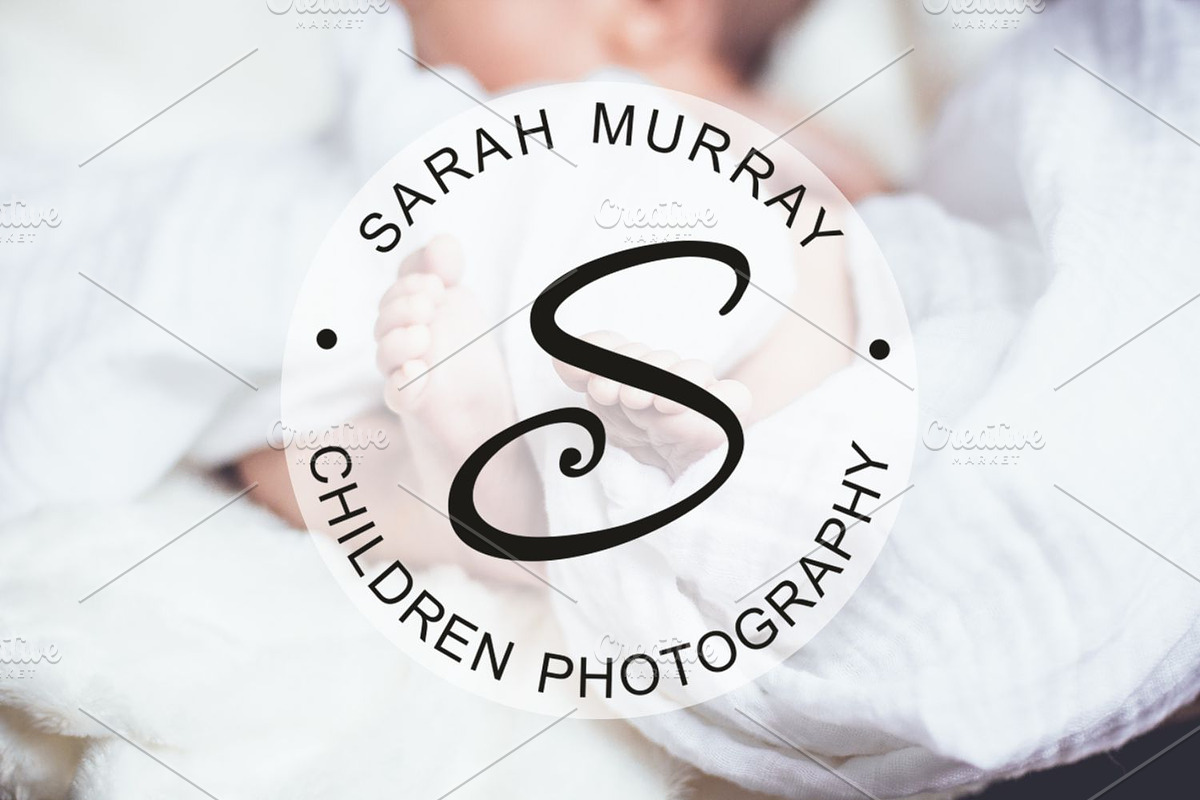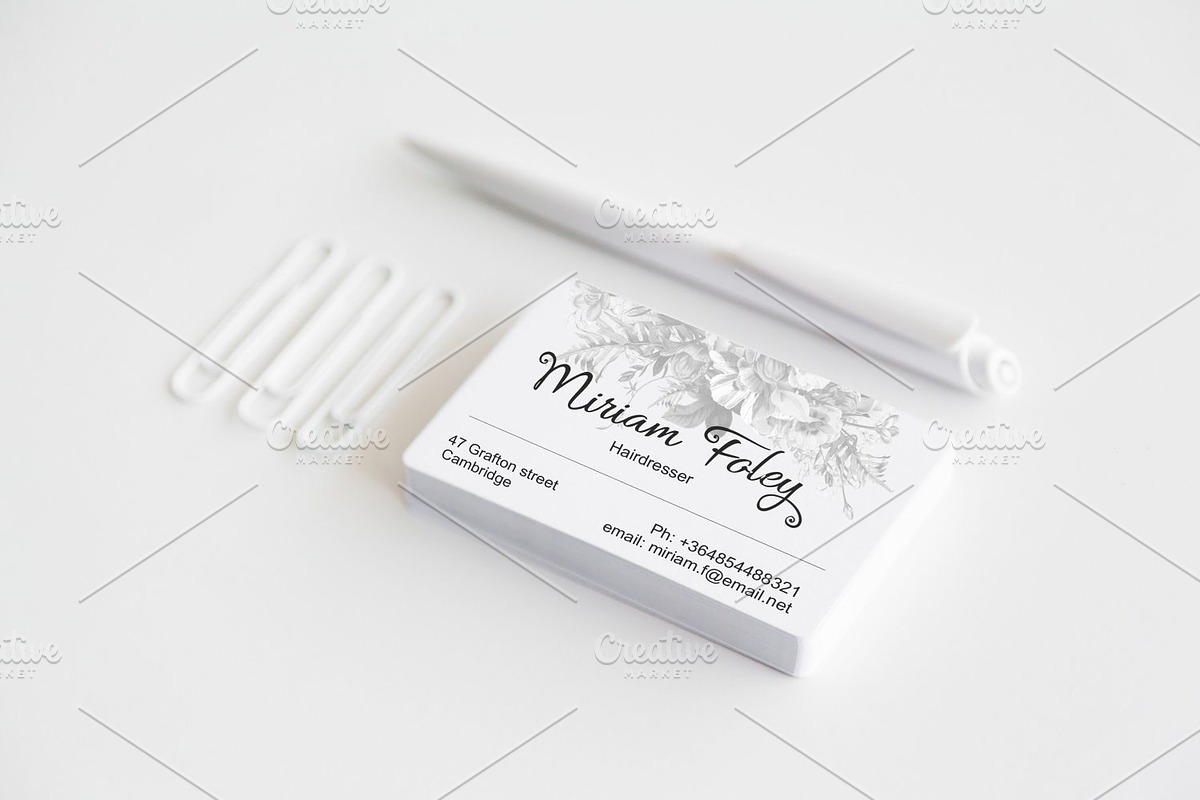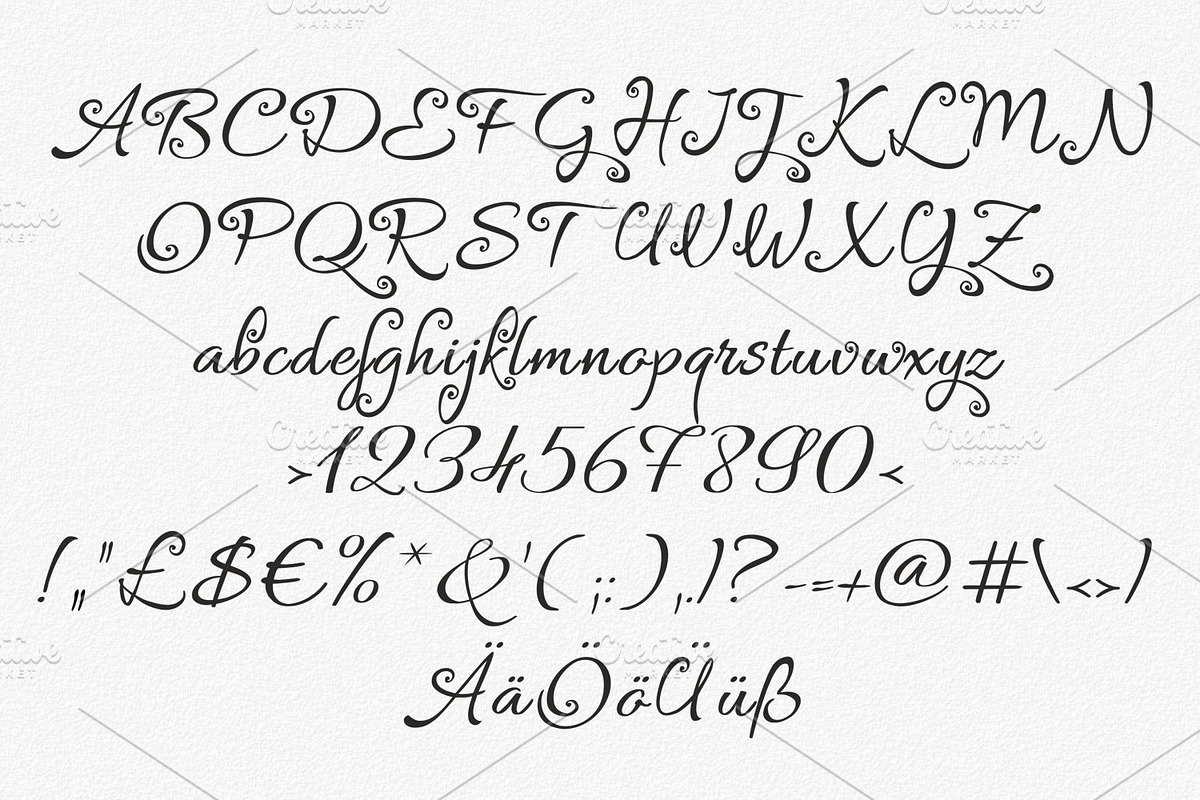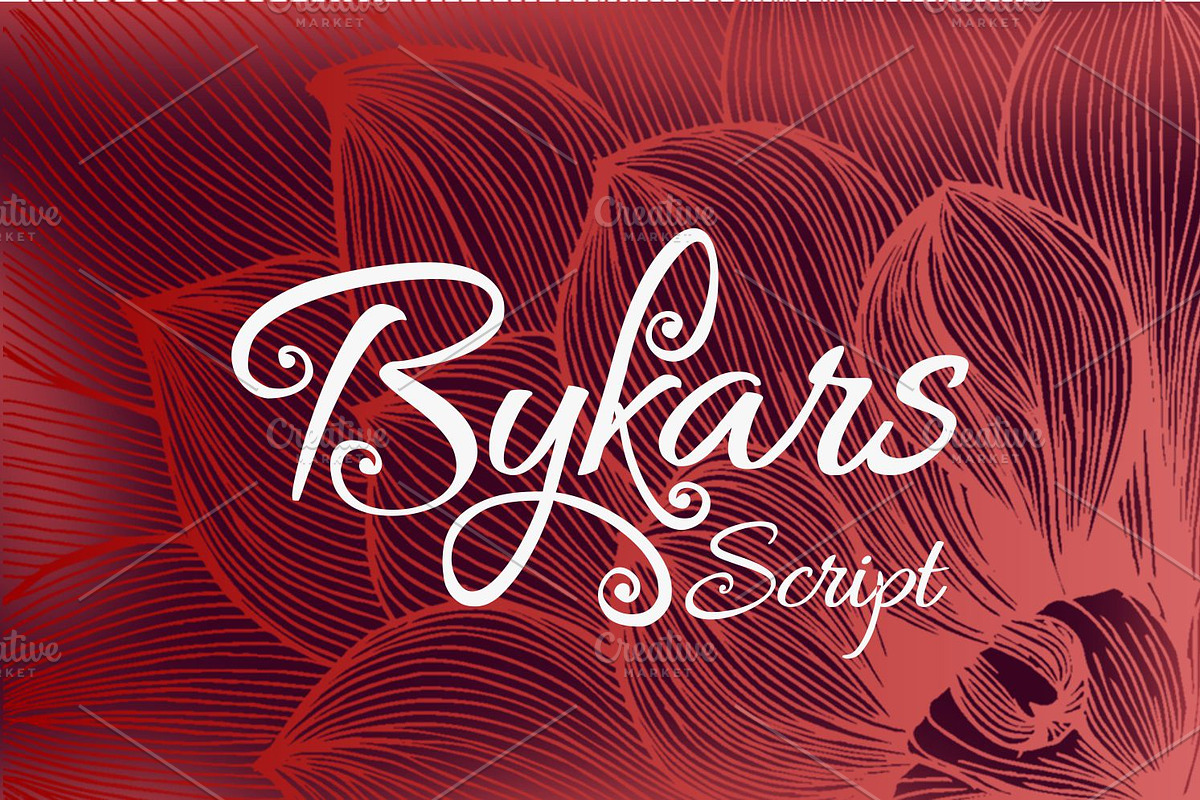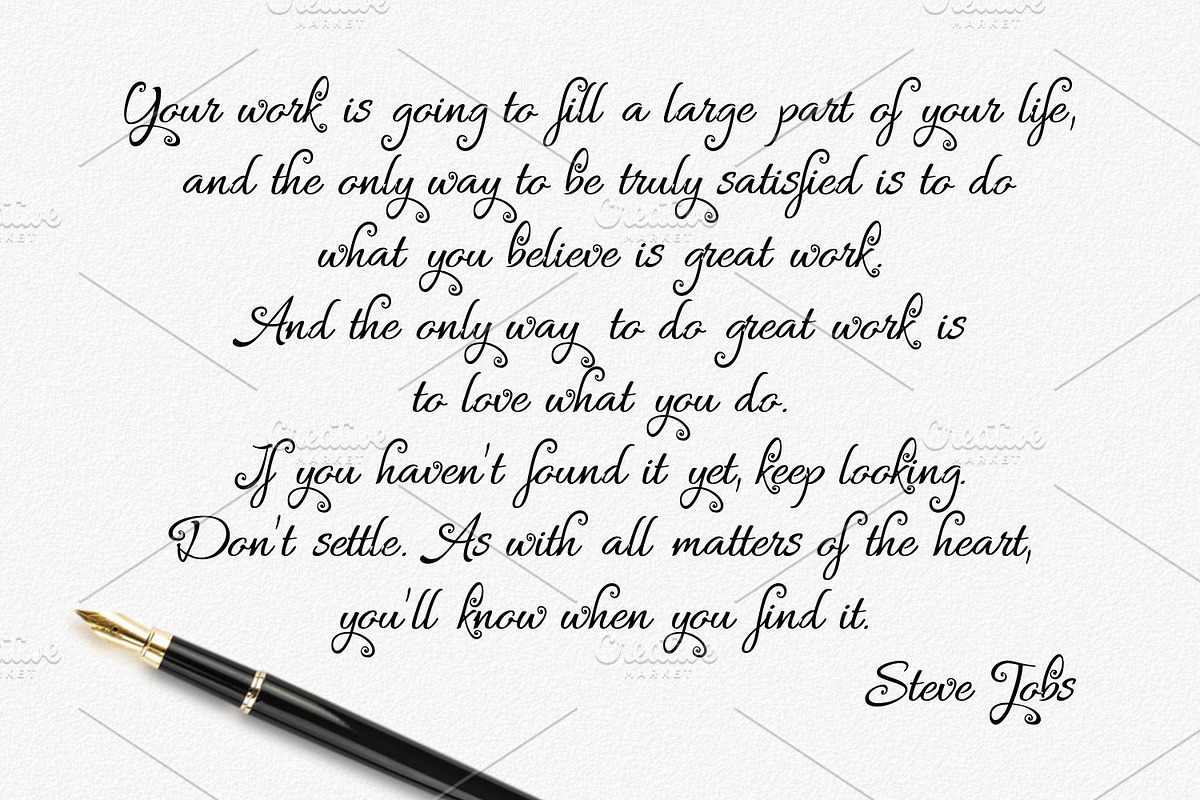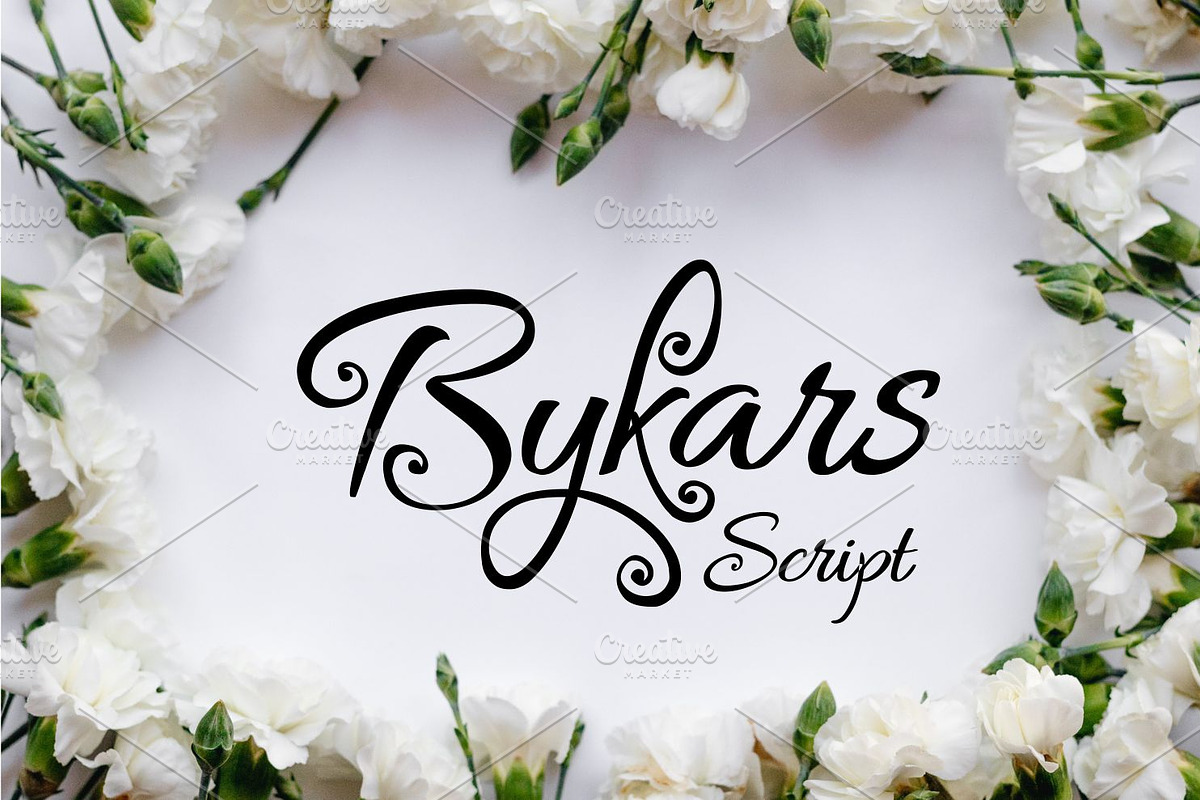
Bykars
Introducing Bykars handwritten typeface, extended with German characters.
Why Bykars is worth a look
Bykars by Digital Typeface Studio fits naturally into Branding, posters, packaging, typography.